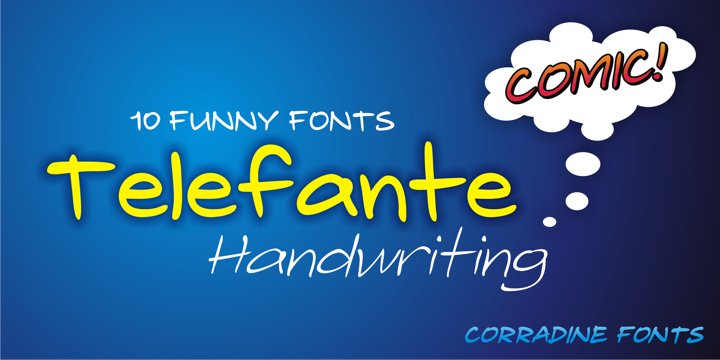
Telefante Family Font
About Telefante Family Font
TelefanteĀ is a beautiful font family! It can be used for various purposes such as: headlines, book covers, posters, invitations and much more! Perfect for those who like to be creative!